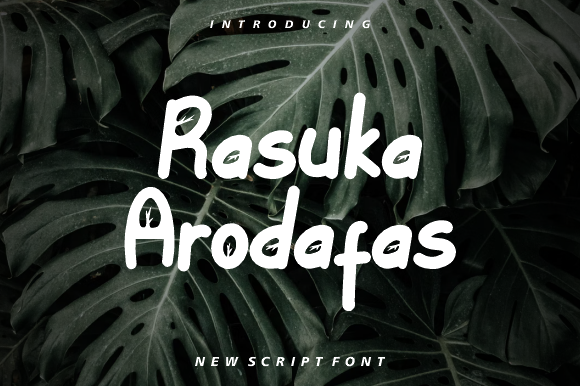
Rasuka Arodafas, a paint-brushed and vintage-styled display font, awaits you to embark on a captivating typographic journey. Its meticulously crafted characters, reminiscent of a bygone era, exude an enchanting charm ready to elevate your designs.
Immerse yourself in endless creative possibilities with Rasuka Arodafas. Whether you're crafting captivating gaming websites, alluring posters, or eye-catching logos, this font will effortlessly amplify your message, leaving a lasting impression on your audience.
Beyond its aesthetic appeal, Rasuka Arodafas boasts exceptional versatility, seamlessly adapting to diverse design concepts. Its whimsical strokes add a touch of nostalgia to retro-themed projects, while its bold presence commands attention in modern layouts.
Unleash your creativity and let Rasuka Arodafas be your guiding light. This captivating font will empower you to craft designs that resonate with your audience, leaving them spellbound by your typographic artistry.
Embrace the world of Rasuka Arodafas today and unlock a treasure trove of design possibilities. Let its enchanting characters grace your creations and elevate them to new heights of visual brilliance.